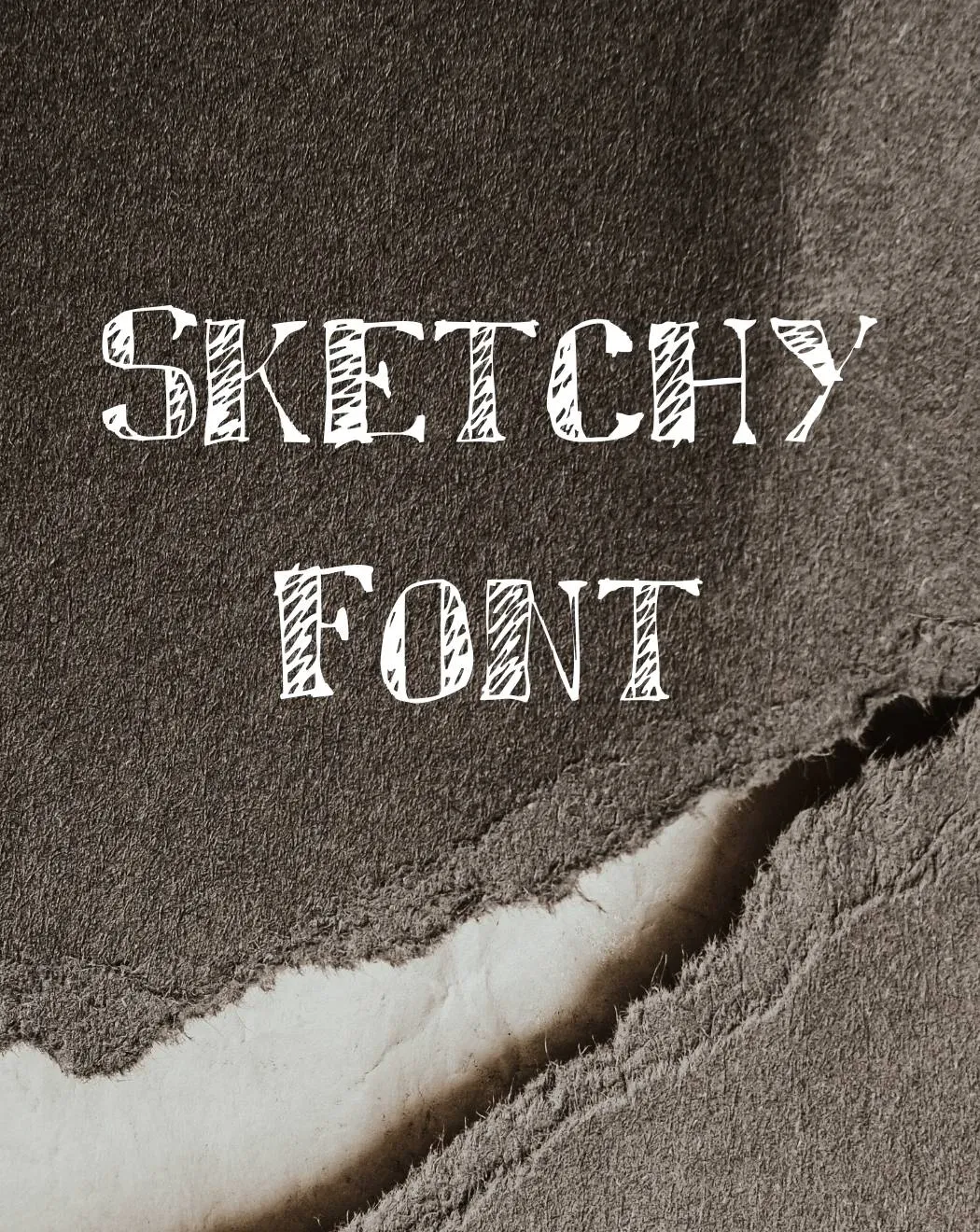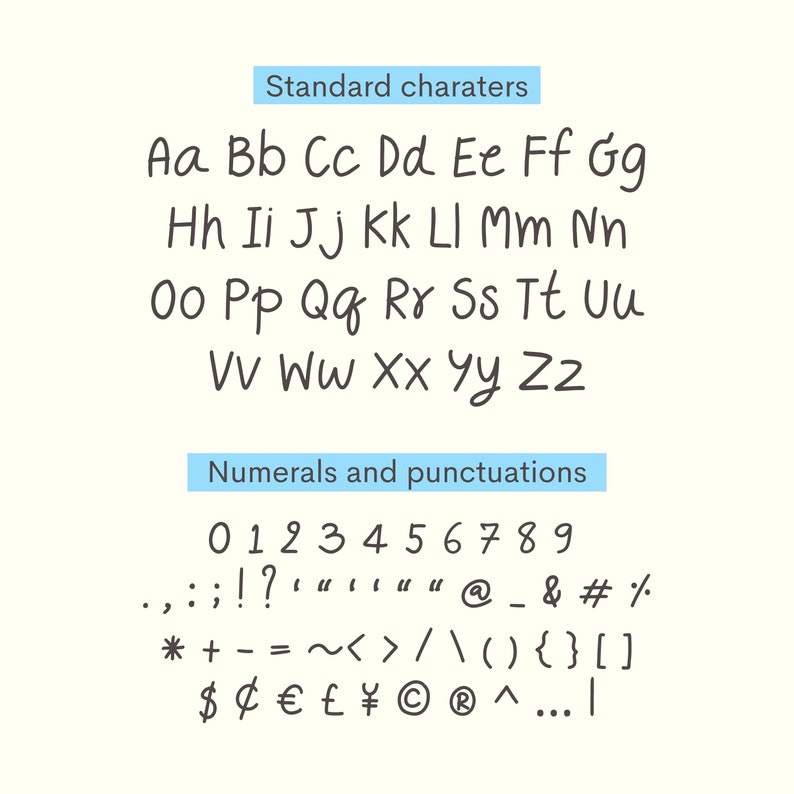
Sketchy Handwritten Font . Sketch letters may be partially filled or. Web looking for sketch handwriting fonts?
Sketch letters may be partially filled or. Click to find the best 17 free fonts in the sketch hand style. Every font is free to. Sketched fonts have letters that are roughly drawn and not quite finished.
Sketchy Handwritten Font - Web explore sketchy fonts at myfonts. Web looking for sketch handwriting fonts? Discover a world of captivating typography for your creative projects. Sketchy à € by nirmana visual. Sketch letters may be partially filled or.
Sketchy Handwritten Font - Web unleash your creativity with our free sketched fonts! Sketched fonts have letters that are roughly drawn and not quite finished. Perfect for crafting unique designs that catch the eye and spark imagination. Web explore sketchy fonts at myfonts. Sketch handwriting à € by galdino otten fonts.
Sketchy Handwritten Font - Sketch handwriting à € by galdino otten fonts. Sketch letters may be partially filled or. Web looking for sketch hand fonts? Web explore our captivating collection of free handwritten, sketched fonts. Discover a world of captivating typography for your creative projects.
Sketchy Handwritten Font - Web unleash your creativity with our free sketched fonts! Sketchy à € by nirmana visual. Discover a world of captivating typography for your creative projects. Perfect for crafting unique designs that catch the eye and spark imagination. Web explore sketchy fonts at myfonts.
Sketchy Handwritten Font - Click to find the best 17 free fonts in the sketch hand style. Web looking for sketch hand fonts? Web looking for sketch handwriting fonts? Sketched fonts have letters that are roughly drawn and not quite finished. Web explore sketchy fonts at myfonts.
Sketchy Handwritten Font - Perfect for adding a personable touch to any design project! Web looking for sketch handwriting fonts? Discover a world of captivating typography for your creative projects. Sketchy à € by nirmana visual. Sketch handwriting à € by galdino otten fonts.
Sketchy Handwritten Font - Sketched fonts have letters that are roughly drawn and not quite finished. Web explore our captivating collection of free handwritten, sketched fonts. Web unleash your creativity with our free sketched fonts! Discover a world of captivating typography for your creative projects. Every font is free to.
Sketchy Handwritten Font - Sketch handwriting à € by galdino otten fonts. Sketched fonts have letters that are roughly drawn and not quite finished. Web explore sketchy fonts at myfonts. Perfect for crafting unique designs that catch the eye and spark imagination. Click to find the best 17 free fonts in the sketch hand style.
Sketchy Handwritten Font - Click to find the best 17 free fonts in the sketch hand style. Web looking for sketch handwriting fonts? Sketchy à € by nirmana visual. Sketch handwriting à € by galdino otten fonts. Web looking for sketch hand fonts?
Sketchy Handwritten Font - Perfect for crafting unique designs that catch the eye and spark imagination. Web looking for sketch hand fonts? Sketch handwriting à € by galdino otten fonts. Perfect for adding a personable touch to any design project! Sketched fonts have letters that are roughly drawn and not quite finished.